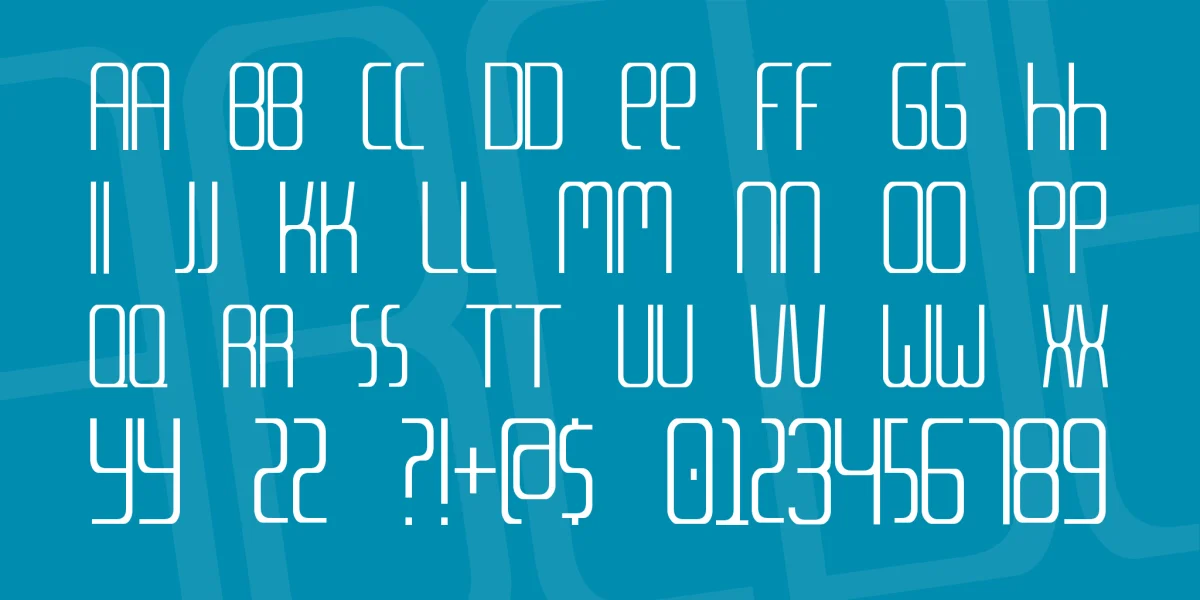
(All keyboard characters (caps=lower), some foreign/special) -- This one was sort of off the ladder too, but in sharp contrast to Potassium Scandal. I tried to make "Conspicuous Consumption", but the different-sized letters gimmick didn't come out well (you can superscript if you really want to type like that). This font works and looks really good, and is named after my favorite advanced programming language, ML. Enjoy!